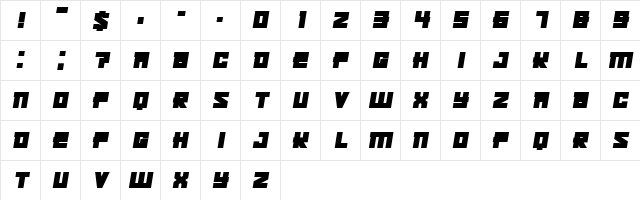
Kachusha is a composed and adaptable typeface that performs quietly and consistently across a wide range of design contexts. The slanted form adds forward momentum and visual energy. Its bold stroke weight gives it real presence on the page.